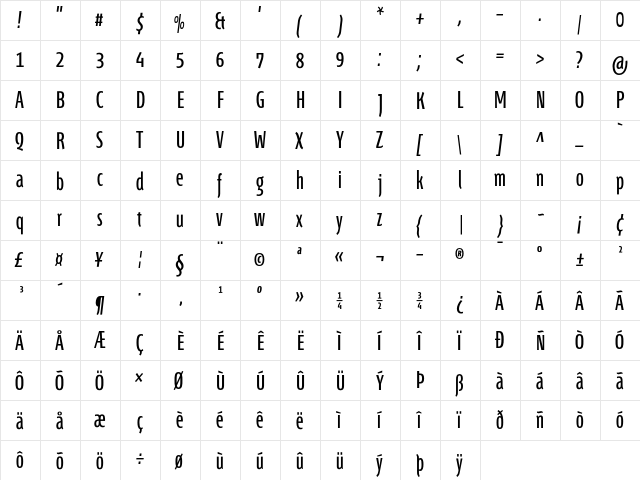
Fontana ND Gg Normal
Design Context for Fontana ND Gg Typeface
Fontana ND Gg is a composed and adaptable typeface that performs quietly and consistently across a wide range of design contexts.